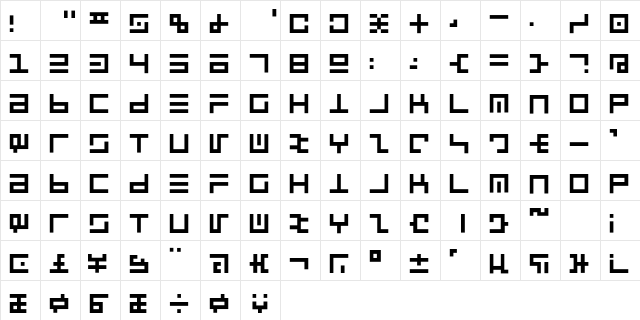
LinearFace Regular
Design Context for LinearFace
LinearFace is a composed and adaptable typeface that performs quietly and consistently across a wide range of design contexts.
Pro Tip: Use LinearFace in both headline and body roles to test its range before committing to a single application.